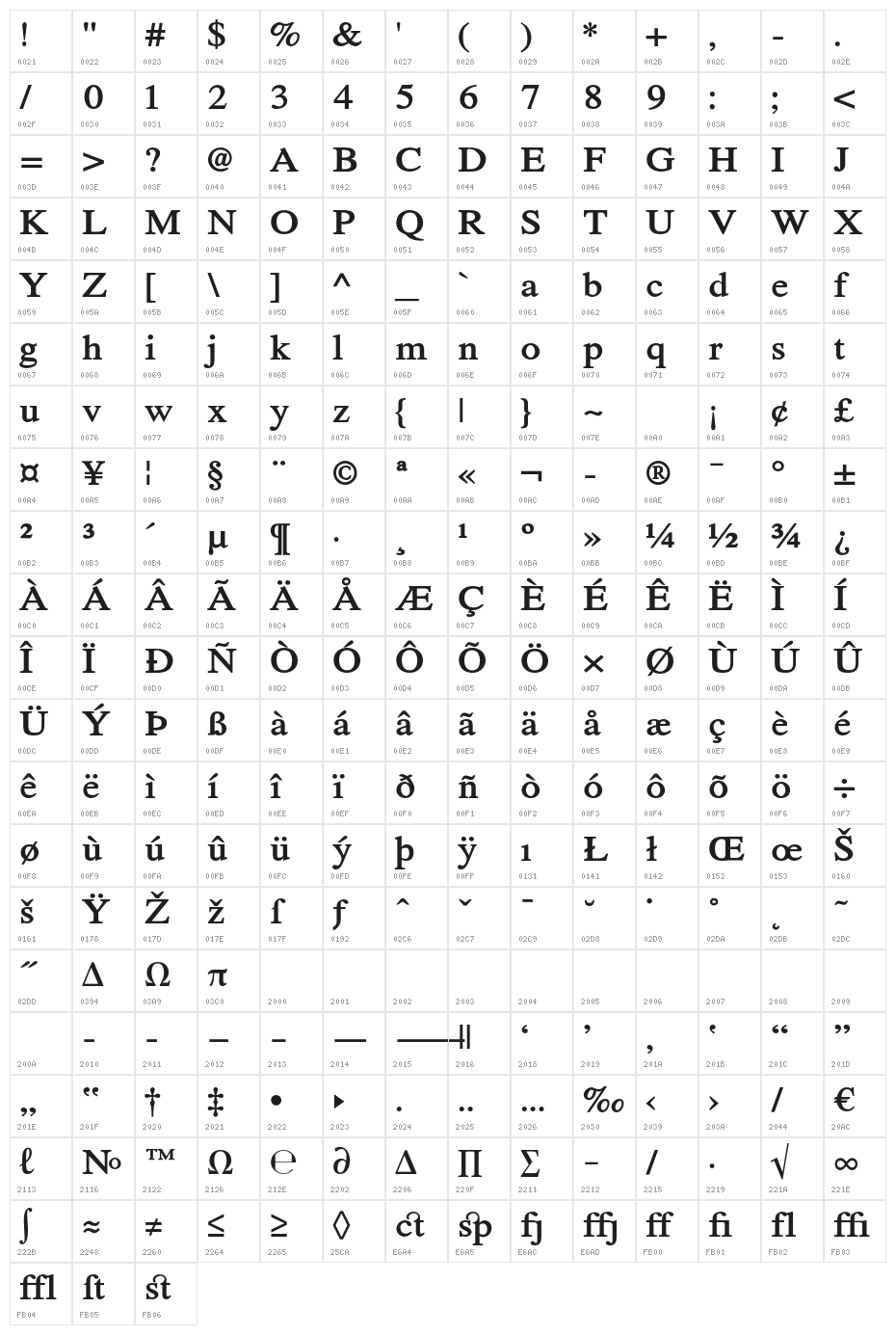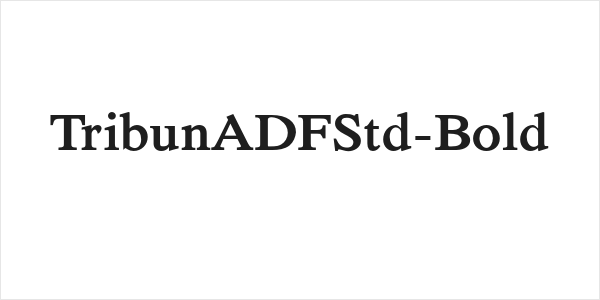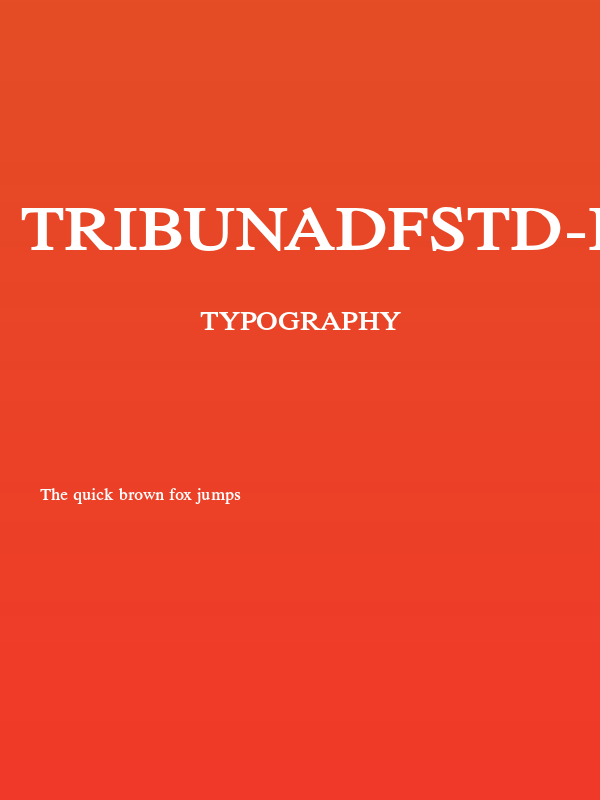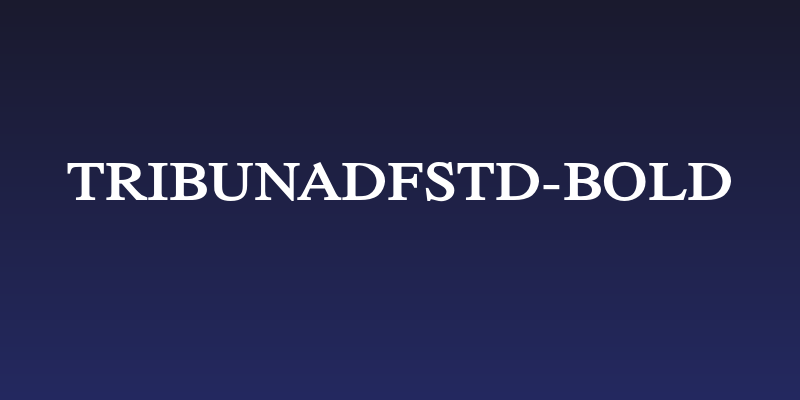
TribunADFStd-Bold Font
TribunADFStd-Bold Description
This font features a classic serif style with strong, bold strokes and high contrast between thick and thin lines. The serifs are pronounced and traditional, giving it a timeless and authoritative appearance. The uppercase letters are tall and commanding, while the lowercase letters maintain a consistent and readable form. The numerals are clear and distinct, making them suitable for both text and display purposes. Special characters are well-defined, enhancing the font's versatility.
| Use Case | Headlines, Logos, Editorial design |
| Proposed Projects | Ideal for editorial design, book covers, formal invitations, and branding that requires a classic and authoritative look. |